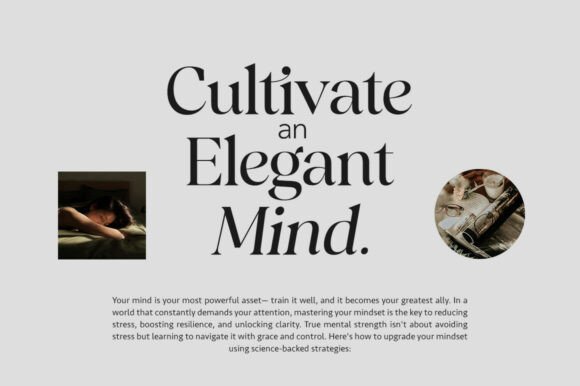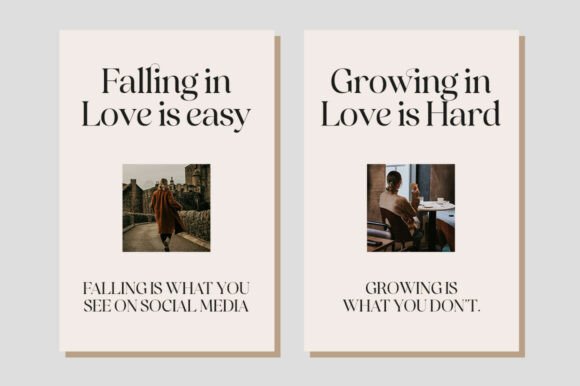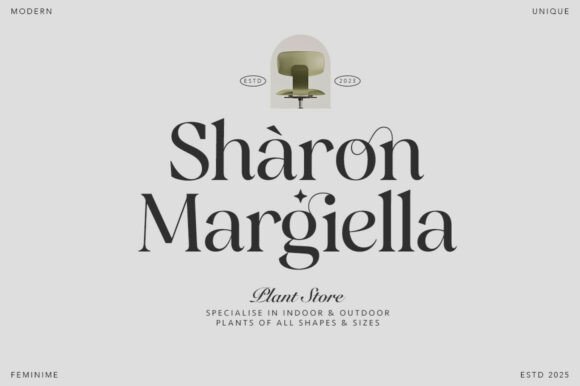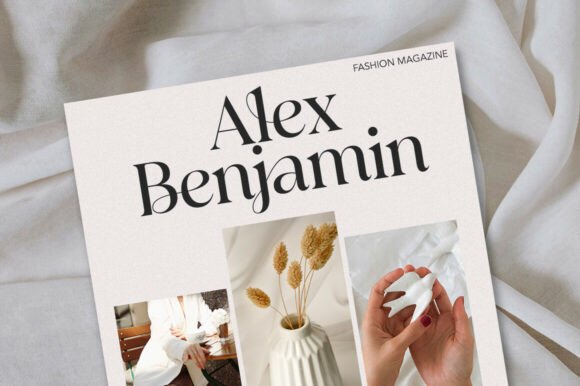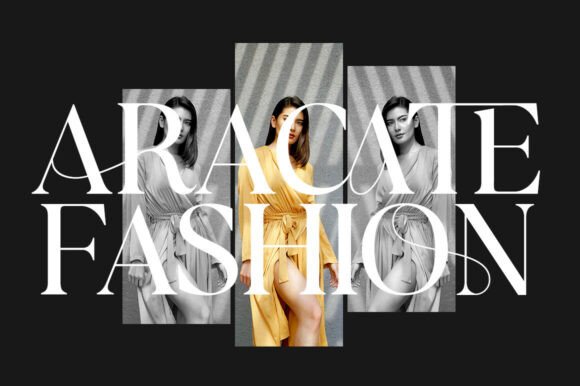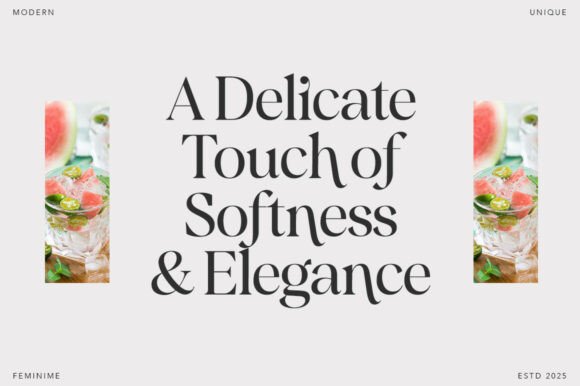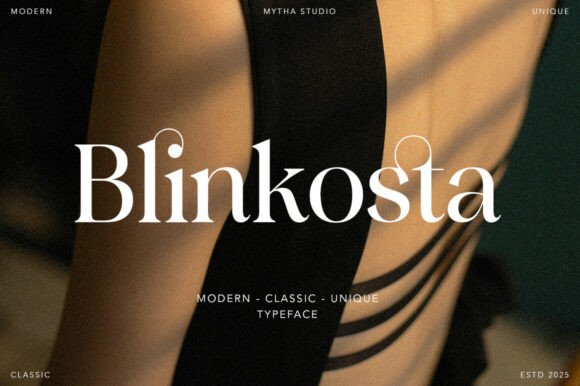
The Blinkosta Font: Elevating Your Designs with Timeless Elegance
I still remember the frustration of working on a design project, pouring my heart and soul into it, only to realize that the font I was using just wasn’t cutting it. The client wanted something elegant, sophisticated, and eye-catching, but I was stuck with a bland, generic font that didn’t quite fit the bill. That’s when I discovered the Blinkosta font, and let me tell you, it was a game-changer! ✨
So, what makes Blinkosta so special? Here are a few things that I absolutely love about this font:
- ✅ Timeless elegance: Blinkosta has a classic, sophisticated look that’s perfect for editorial designs, branding, and more.
- ✨ Effortless sophistication: The font’s clean lines, subtle curves, and elegant ligatures make it a joy to work with.
- 🔥 High versatility: Blinkosta comes with a range of alternates, ligatures, and stylistic features that make it easy to customize.
Of course, no font is perfect, and Blinkosta has a few quirks to be aware of:
- ⚠️ Limited availability of certain characters: Some users have reported issues with certain special characters or glyphs, so be sure to test the font thoroughly.
- 🤔 May require some getting used to: Blinkosta’s unique ligatures and alternates can take some time to get accustomed to, especially if you’re used to more traditional fonts.
The Designer Inspiration Behind Blinkosta
Blinkosta was designed with one goal in mind: to create a font that’s both elegant and effortless. The designer behind Blinkosta was inspired by the classic serif fonts of the past, but with a modern twist. The result is a font that’s both timeless and contemporary, perfect for designers who want to elevate their work.
| Font Name | Blinkosta Font |
| Author | Mytha Studio |
| What is Blinkosta? | Blinkosta is a classic ligature serif font designed for editorial designs, branding, and more. |
| What makes Blinkosta unique? | Blinkosta’s unique ligatures, alternates, and stylistic features make it a standout font that’s both elegant and effortless. |
| Is Blinkosta easy to read? | Yes, Blinkosta is designed to be highly legible, making it perfect for body text, headlines, and more. |